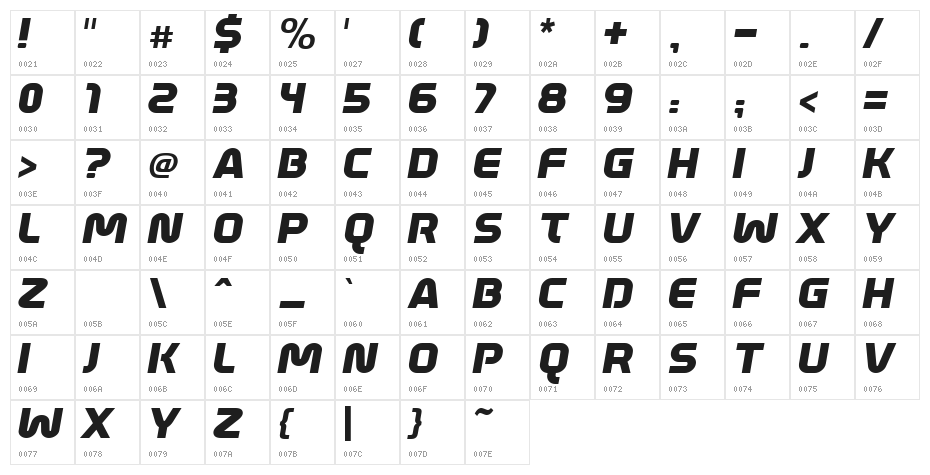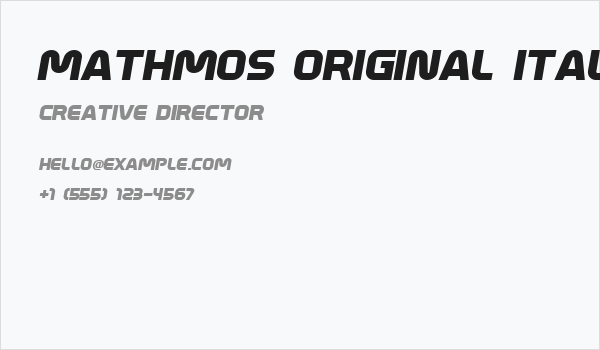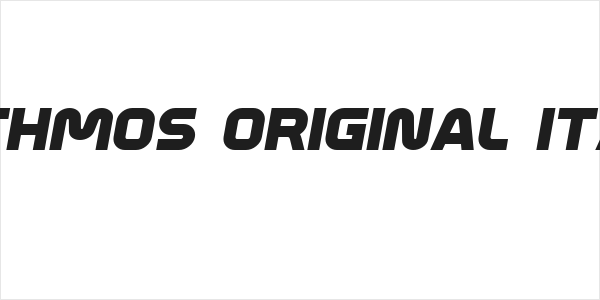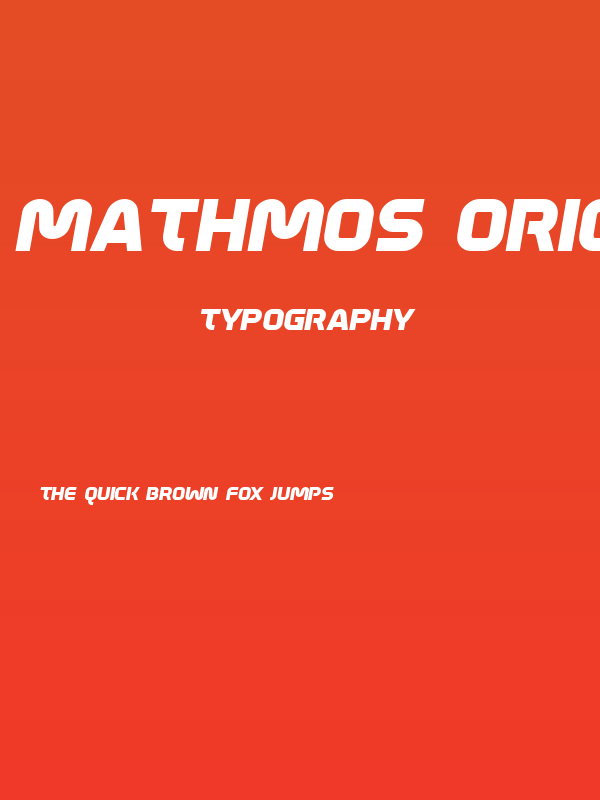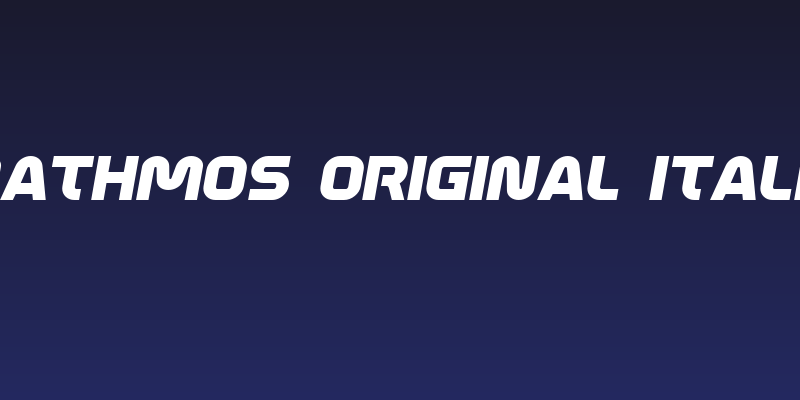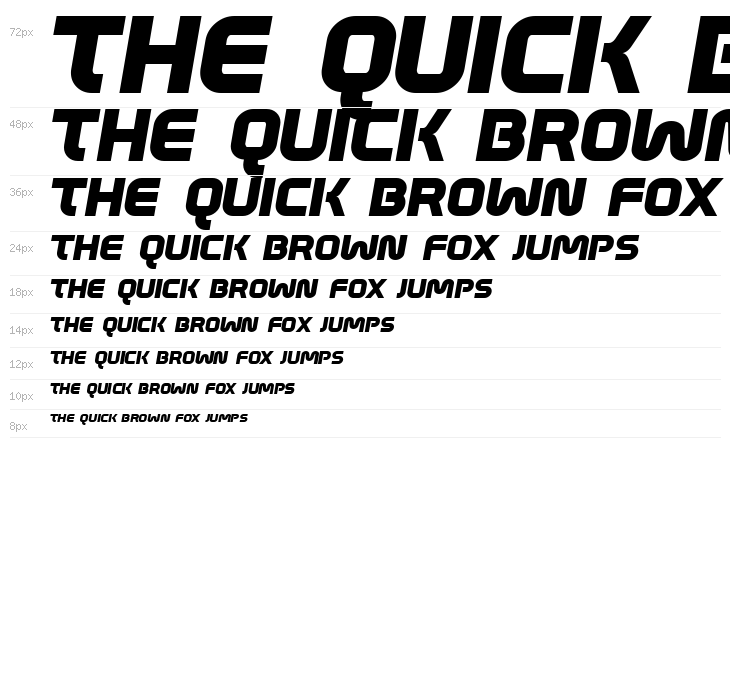
Mathmos Original Italic Font
Mathmos Original Italic Description
This font features a bold, italicized style with a modern and dynamic appearance. The characters are slightly slanted, giving a sense of motion and energy. The strokes are thick and consistent, providing a strong visual impact. The design is clean and geometric, with sharp angles and smooth curves that create a futuristic feel. The numbers and special characters maintain the same boldness and style, ensuring uniformity across all glyphs. This font is highly legible and stands out in any design context.
| Proposed Projects | Ideal for branding, sports team logos, technology-related designs, and modern advertising campaigns. |